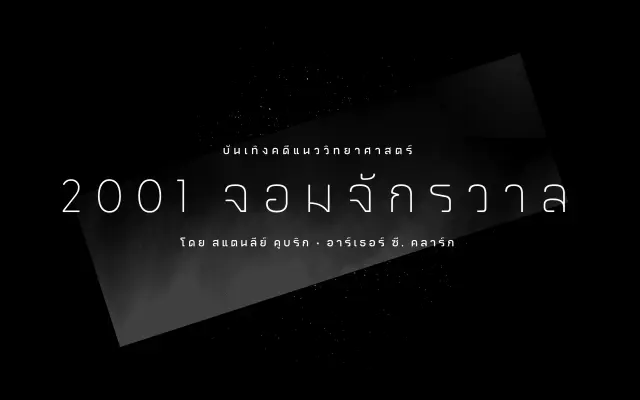
Greycliff Thai CF
A soft geometric sans extending the Greycliff CF family into Thai script, with nine weights and obliques covering both Latin and Thai in a single cohesive system.
Greycliff Thai CF carries the rounded, geometric character of Connary Fagen's original Greycliff across two scripts, pairing Latin and Thai glyphs designed to sit comfortably alongside one another. The family runs to 18 styles across nine weights from Thin to Heavy, each with a matching oblique. Full Thai diacritics are included, making it a self-contained solution for bilingual Latin-Thai applications in branding, publishing and digital products.
Greycliff Thai is a geometric sans-serif adapted from the Greycliff CF family, characterised by soft, rounded geometry applied consistently across both Latin and Thai scripts.